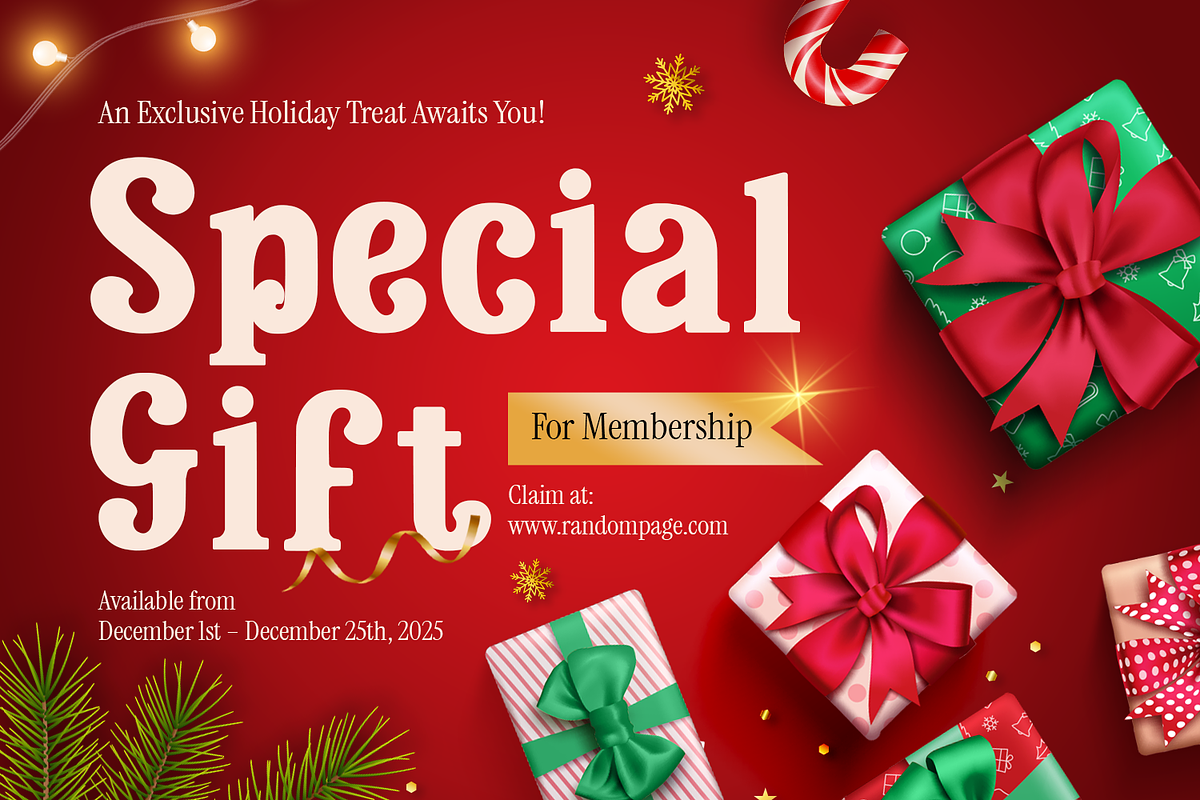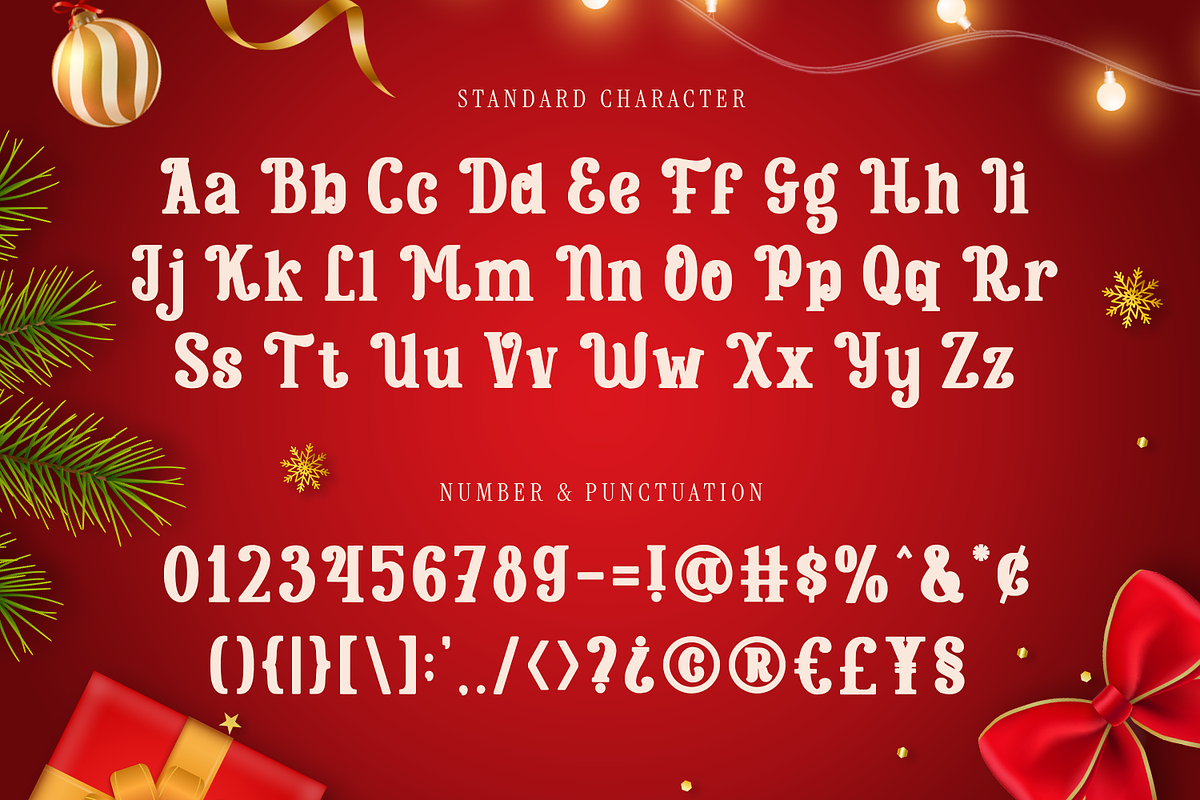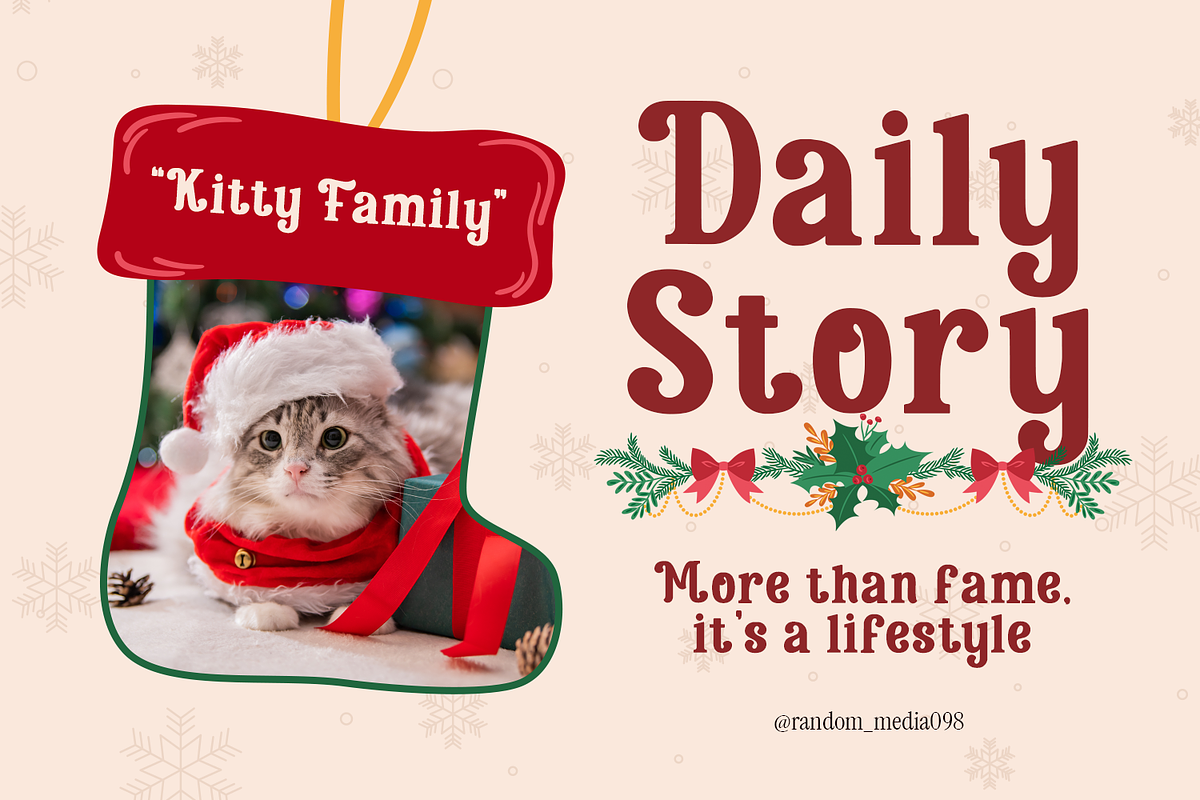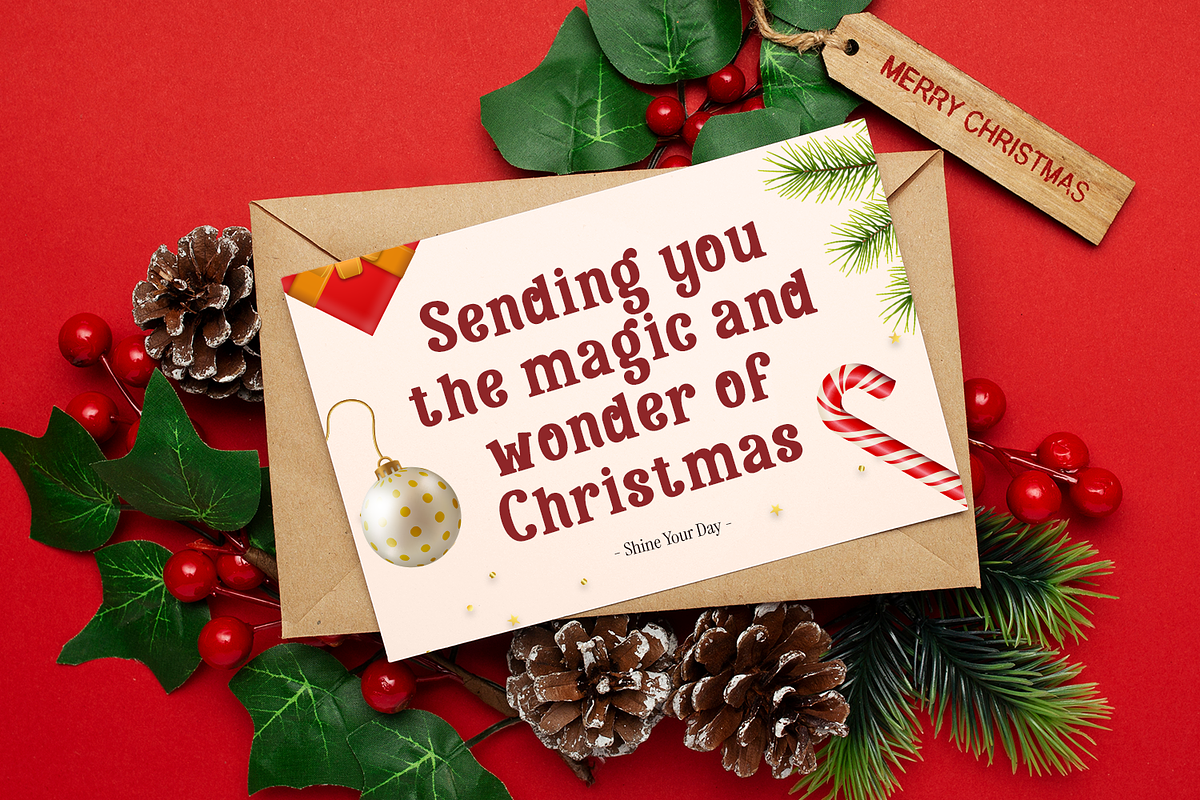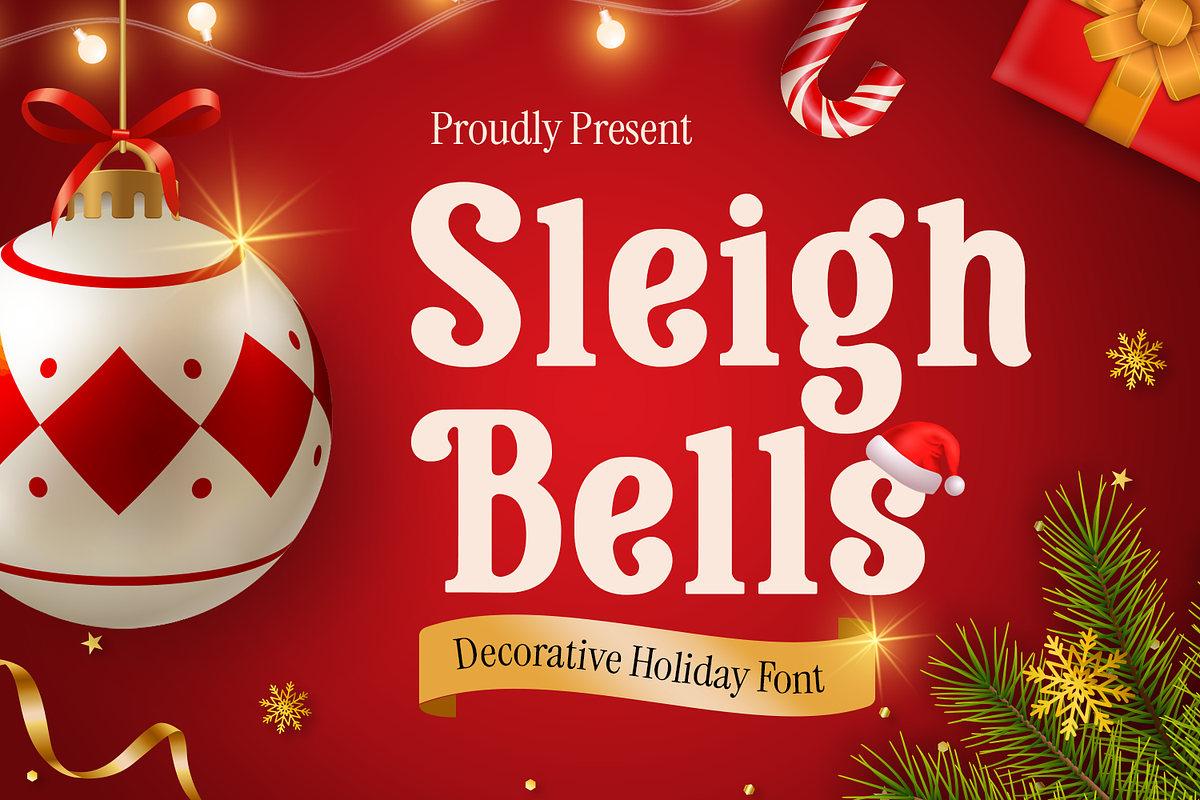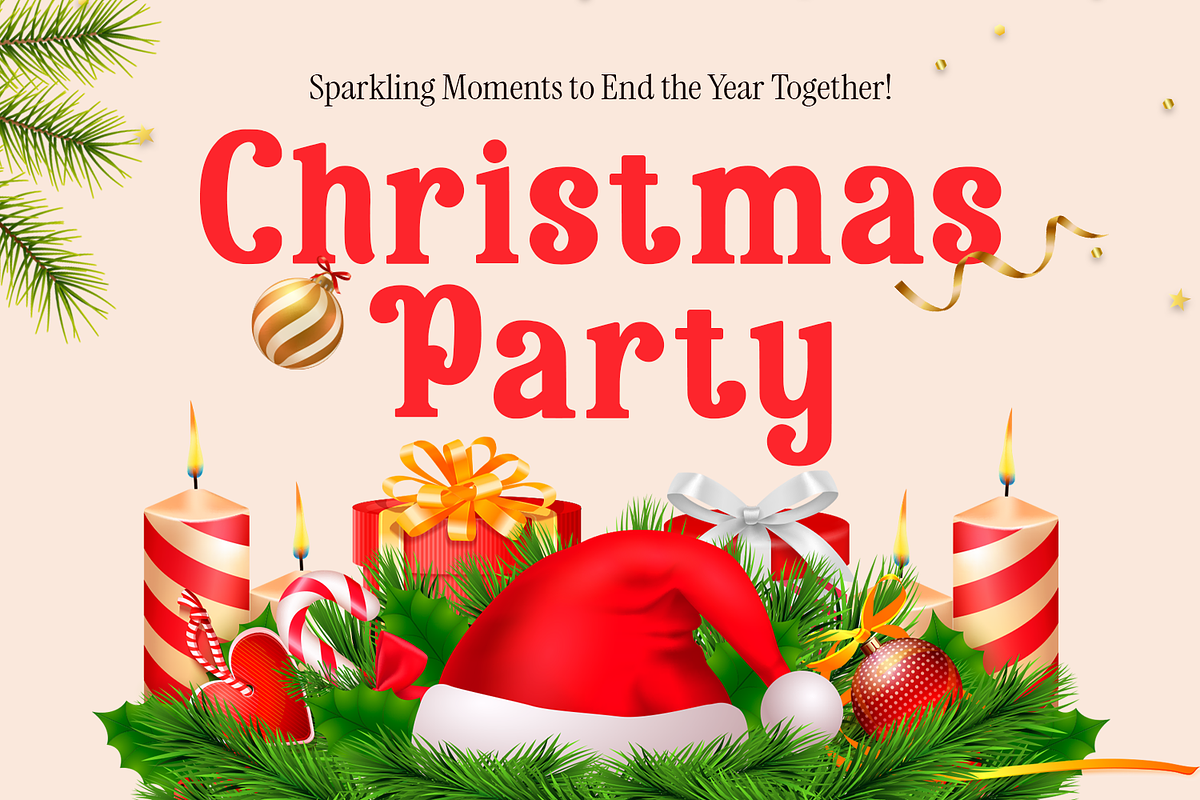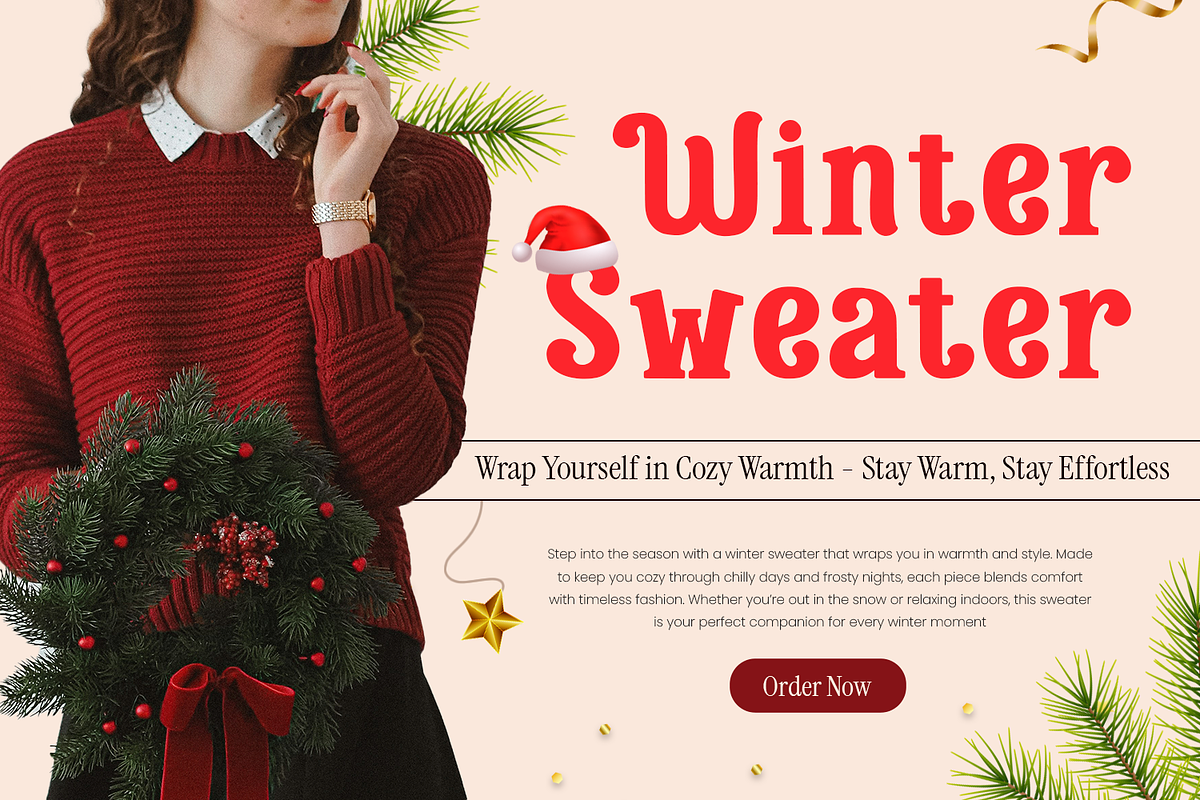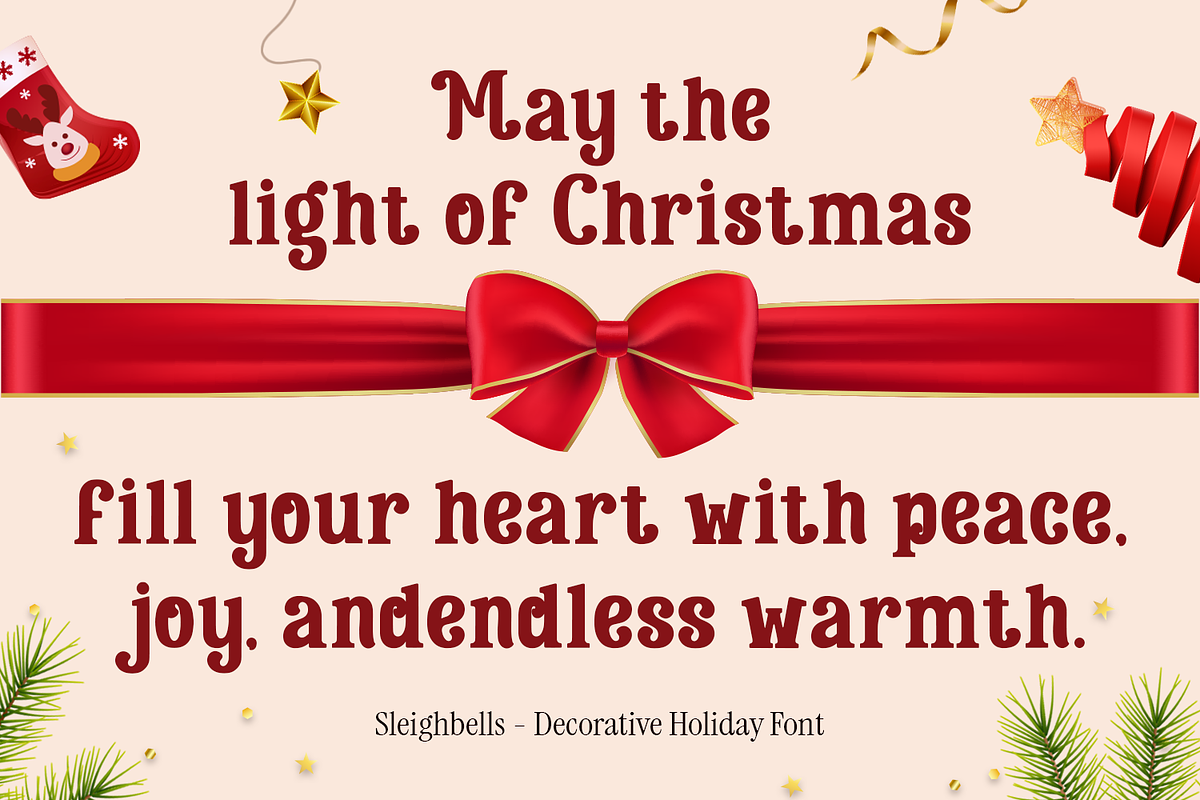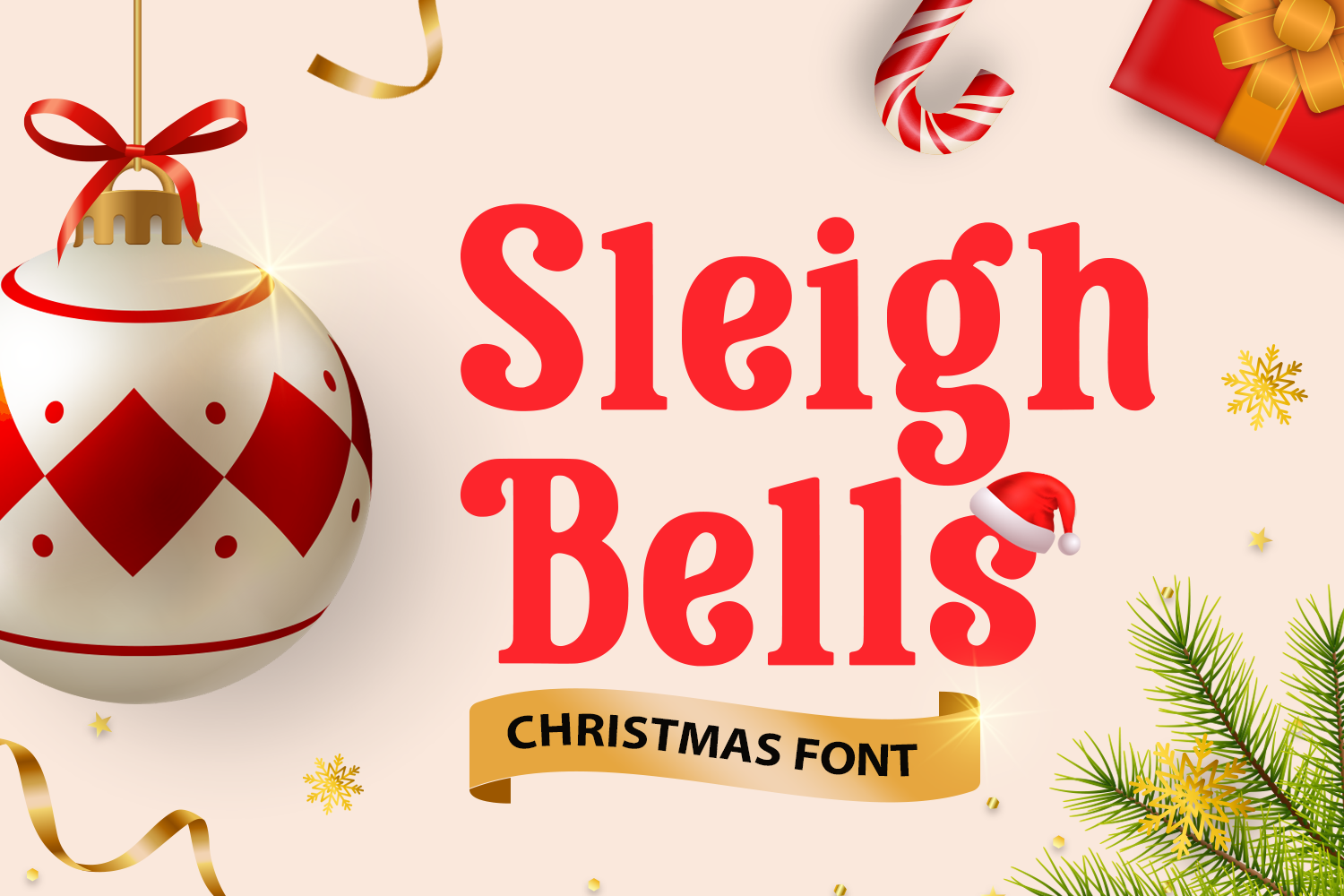
Sleighbells - Christmas Font
Sleighbells – Christmas Font is a decorative typeface that embodies the festive spirit of joy and celebration. With playful curves and bold details, it captures the magic of the holiday season while remaining versatile enough for year-round use. Perfect for cheerful designs, this font adds a touch of charm and delight to every project.
Crafted to bring warmth and personality, Sleighbells shines in Christmas cards, holiday invitations, and festive décor. Beyond the winter season, it adapts beautifully to spring and summer projects, autumn crafts, and celebratory occasions such as birthdays, weddings, and Easter. Its decorative style makes it ideal for both digital and handmade creations.
From Cricut designs and embroidery to posters, labels, and party decorations, this font delivers creativity across multiple mediums. The bold, decorative letterforms ensure visibility while maintaining a fun, welcoming aesthetic, making it a great choice for both professional and DIY projects.
Its versatility extends to seasonal themes, adding elegance and joy to Thanksgiving menus, Christmas gift tags, or summer posters. Whether used for lettering, craft projects, or SVG designs, Sleighbells – Christmas Font brings festive energy and artistic flair to every detail.
Celebrate creativity with Sleighbells – Christmas Font. Add this decorative typeface to your collection today and let every design sparkle with festive charm and timeless joy.